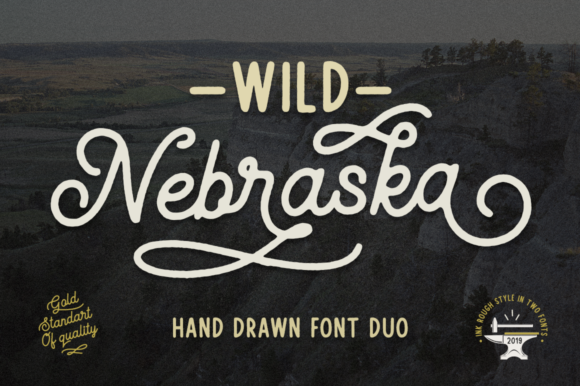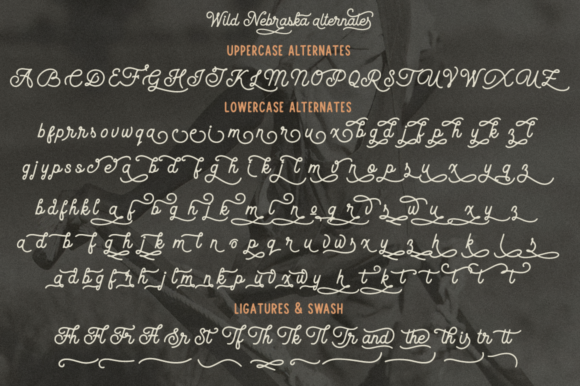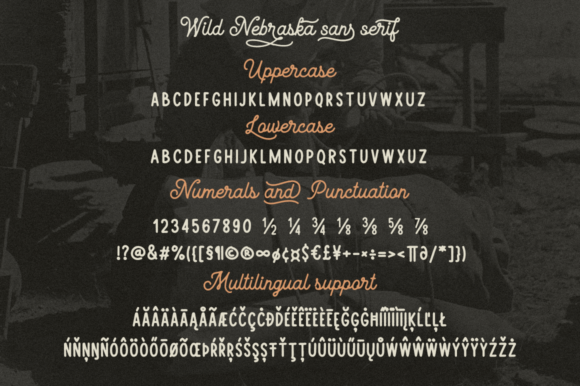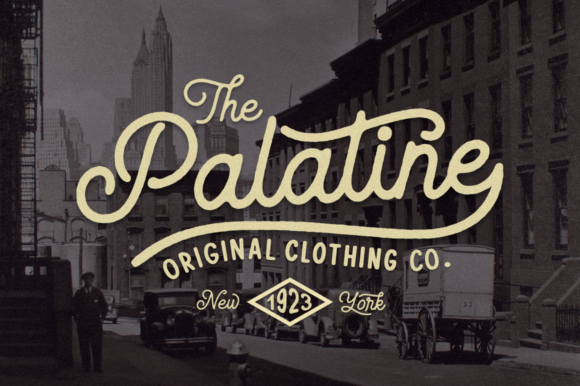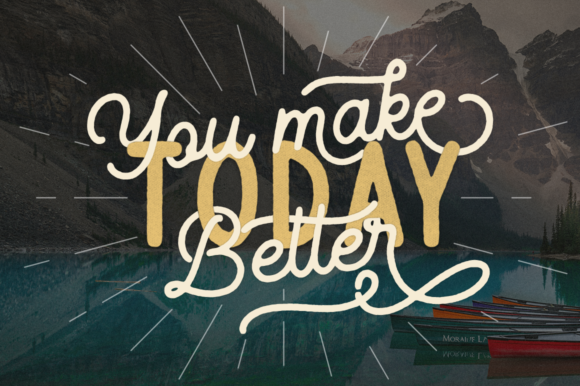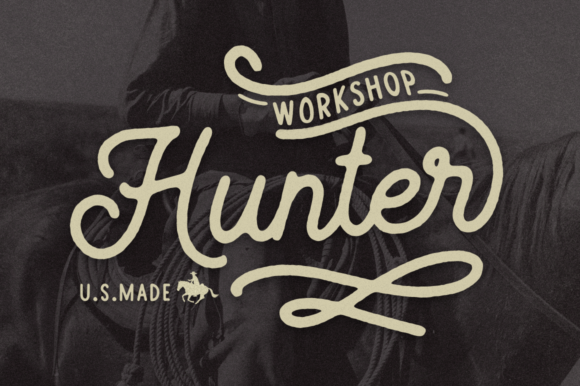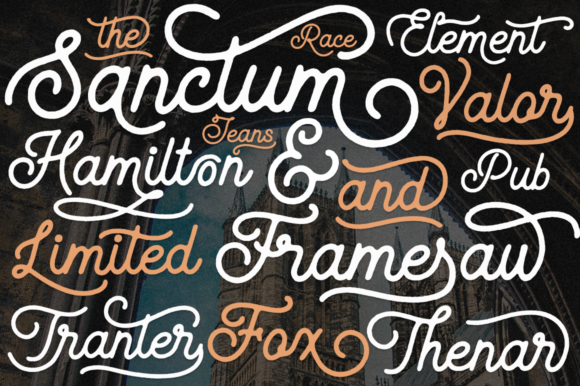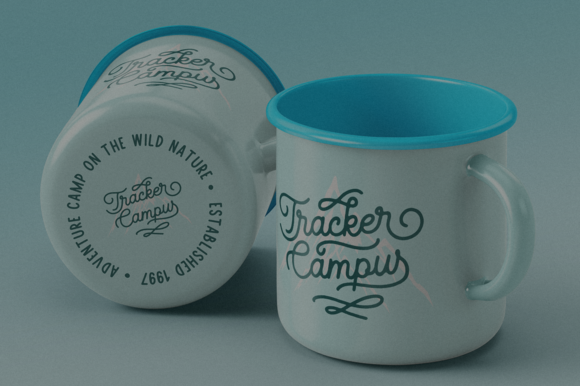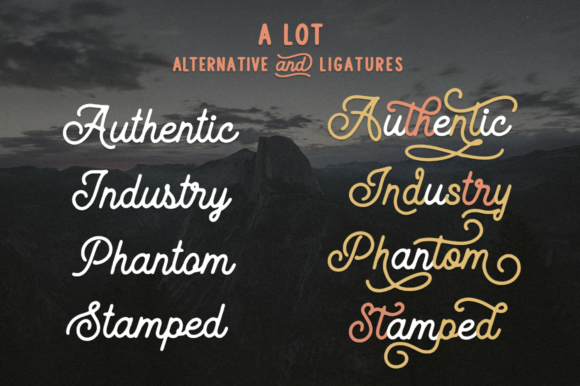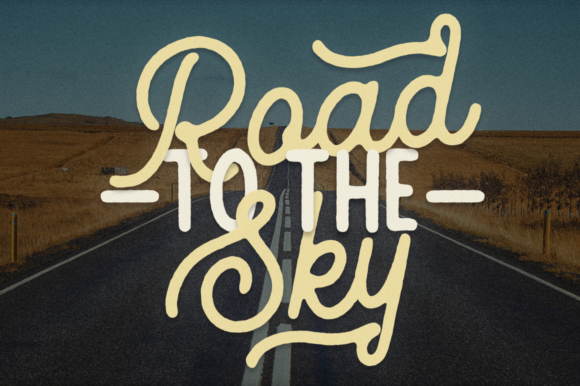
Wild Nebraska Font
About Wild Nebraska Font
Wild Nebraska is inspired by wildlife, endless plains, and breathtaking mountains. Fall in love with its vintage appearance!